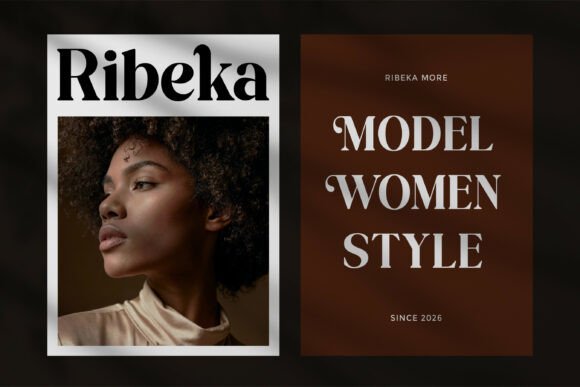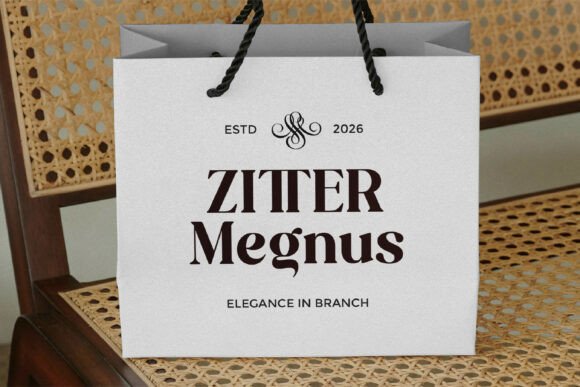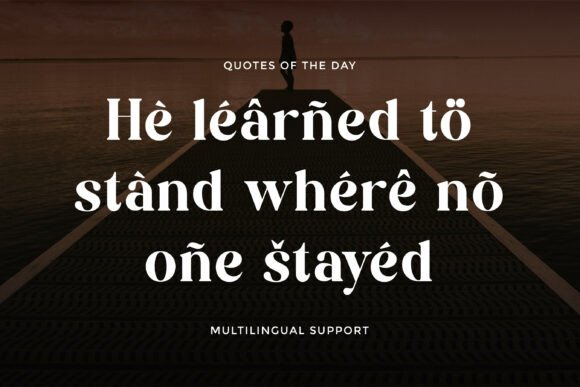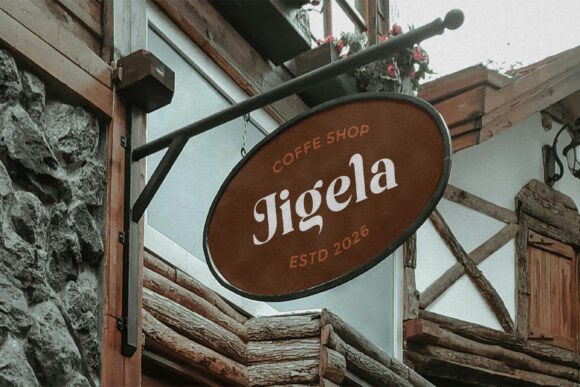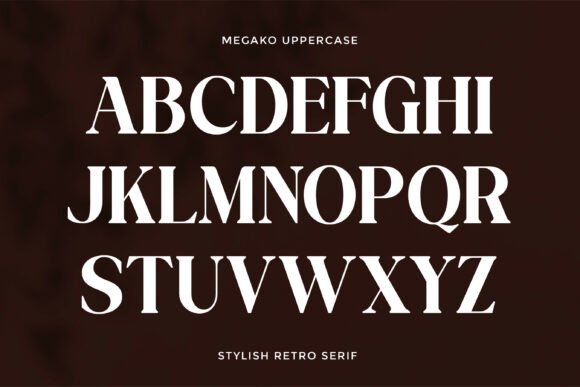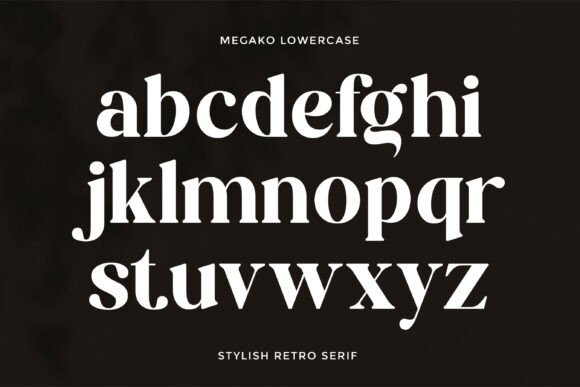
Introduction to Megako Font
Megako is a stylish retro serif display typeface crafted to bring elegance, character, and timeless charm to your designs.
Featuring smooth curves, refined contrasts, and distinctive letterforms, Megako delivers a sophisticated visual identity inspired by classic fashion and vintage aesthetics .
Key Features of Megako Font